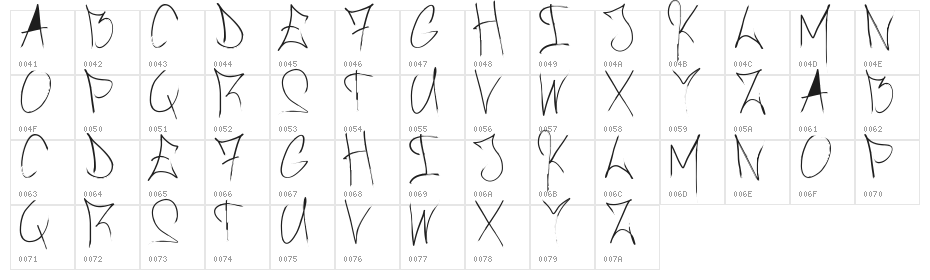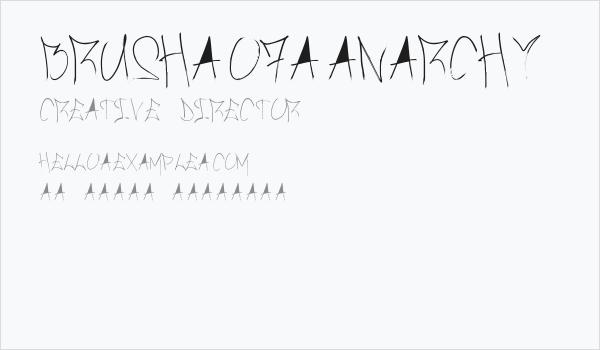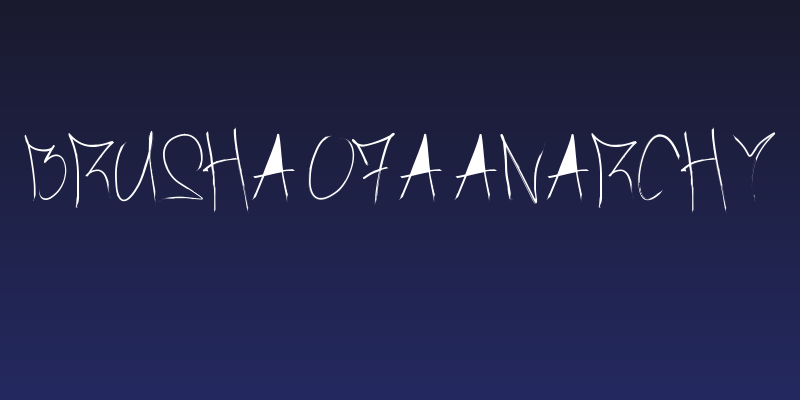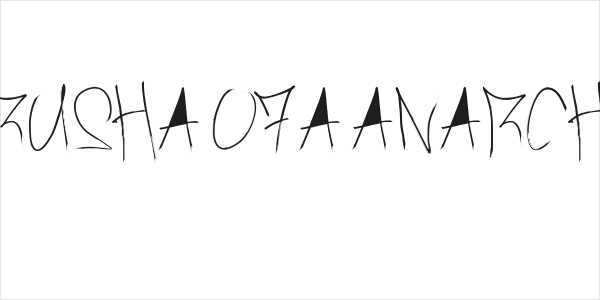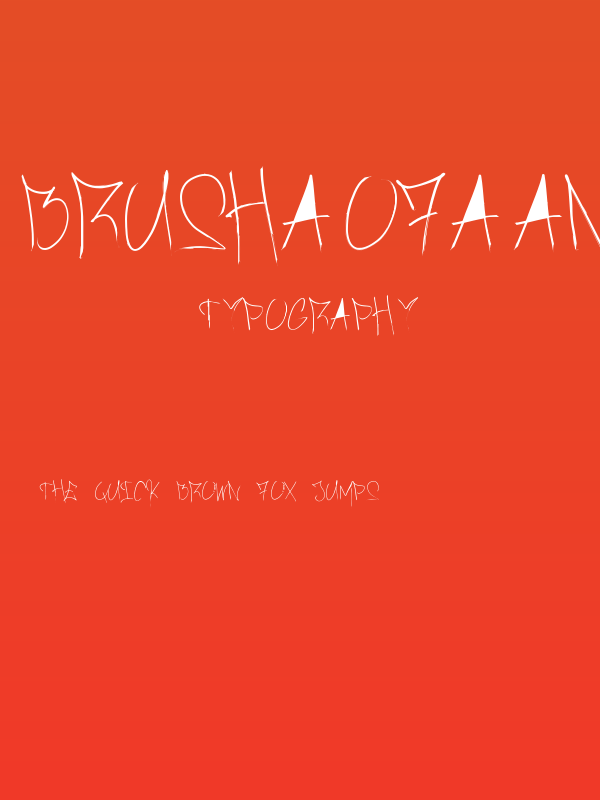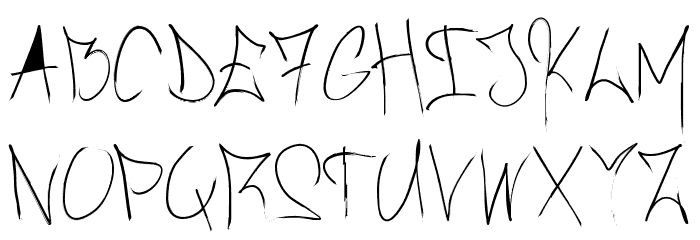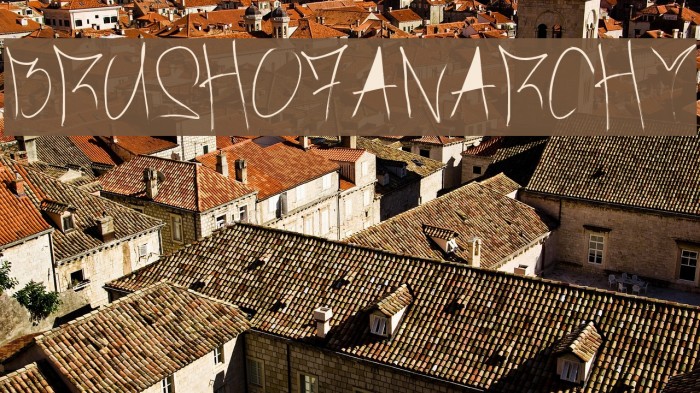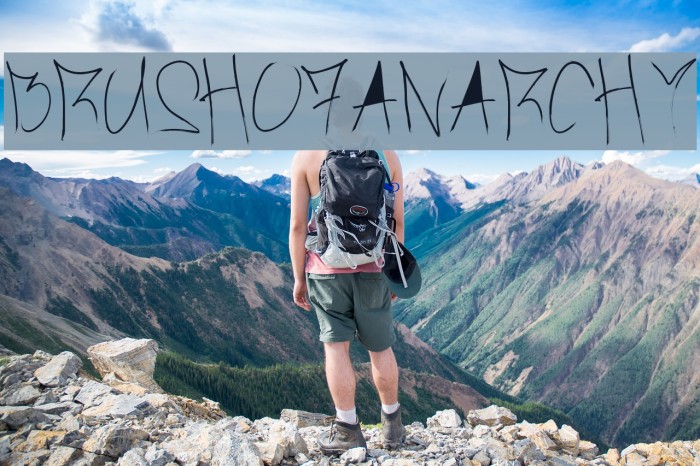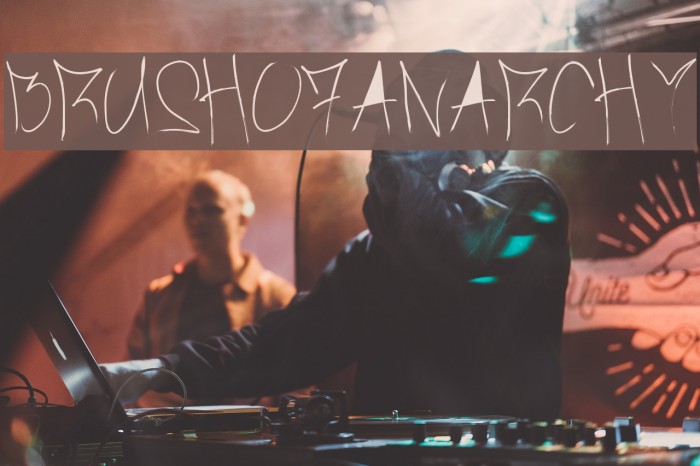
Brush_Of_Anarchy Font
Brush_Of_Anarchy Description
This font exudes a rebellious and edgy vibe, characterized by its brush-like strokes and irregular, jagged edges. The letters have a hand-drawn appearance, with varying thicknesses that create a dynamic and energetic feel. The uppercase and lowercase letters maintain a consistent style, with elongated lines and sharp angles that give the font a sense of movement and chaos. The numbers and special characters follow the same aesthetic, ensuring a cohesive look across all elements. This font is perfect for projects that require a bold and unconventional statement.
| Overall Style | Modern, Edgy |
| Proposed Projects | Ideal for music album covers, streetwear branding, graffiti art, and edgy poster designs. |